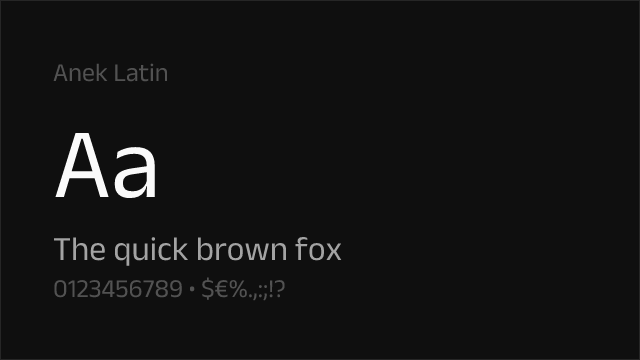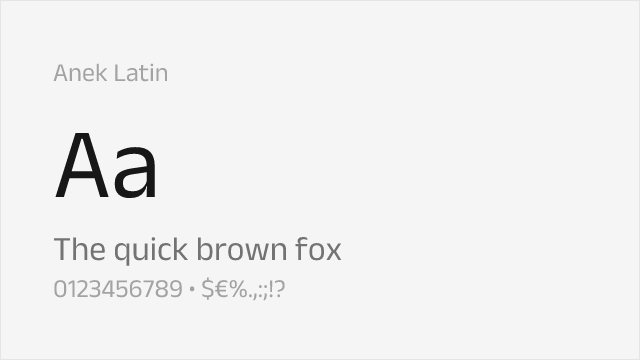
Free Alternatives to Effra with Modern Style
Effra is known for its modern aesthetic. If you're looking for a free sans serif font with a similar modern feel, these 3 alternatives offer comparable characteristics. We've identified 3 that are especially well-suited for this context. All are available under open-source licenses for unrestricted commercial use.